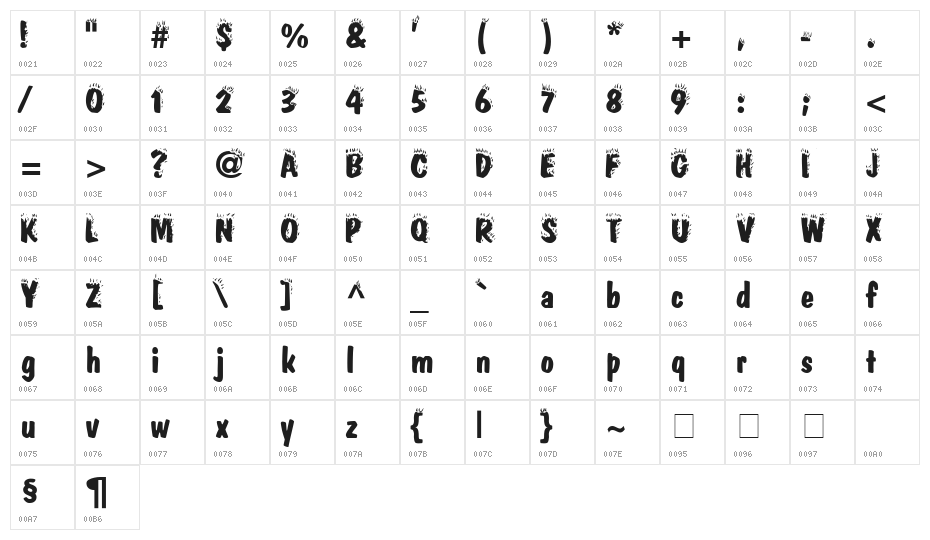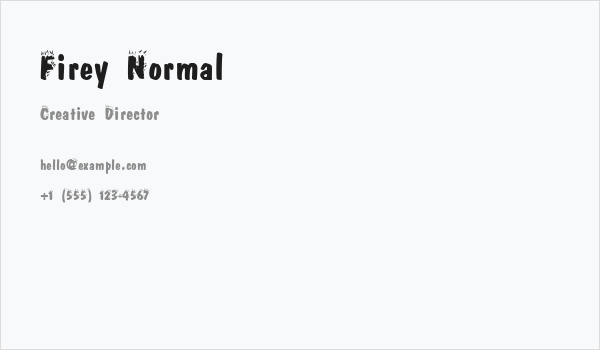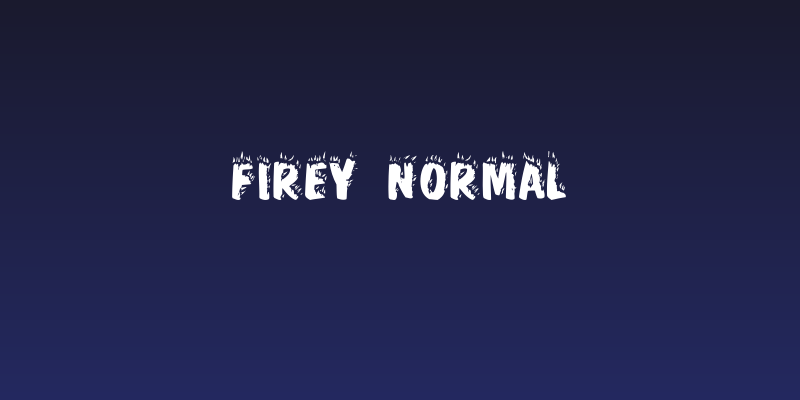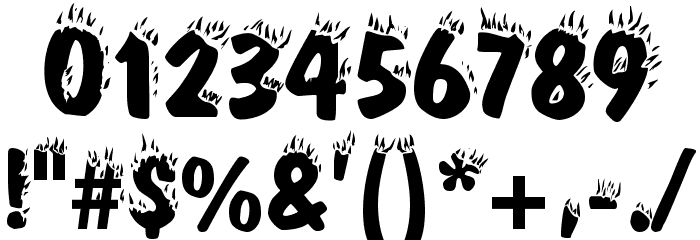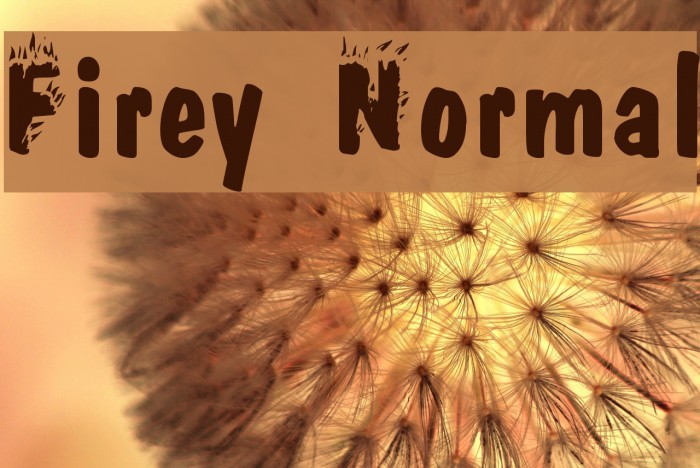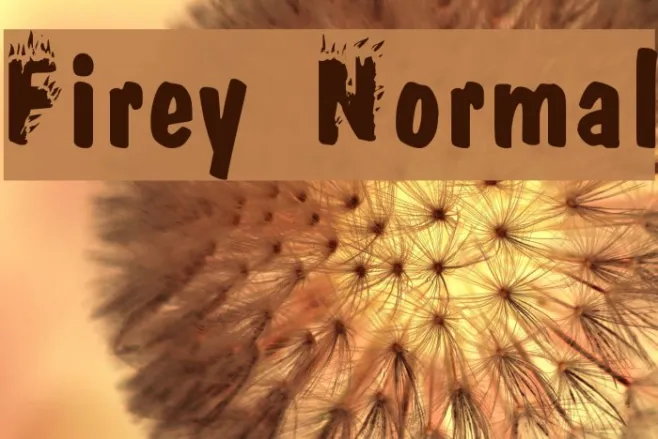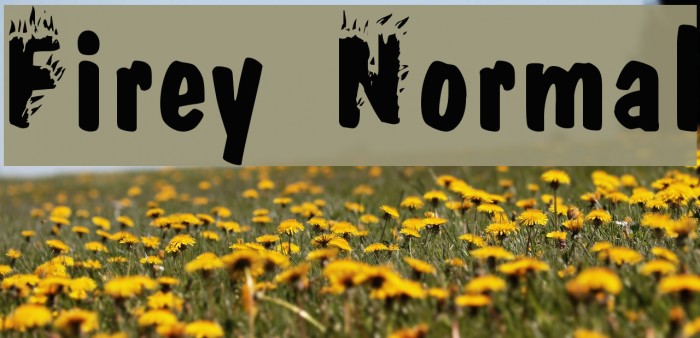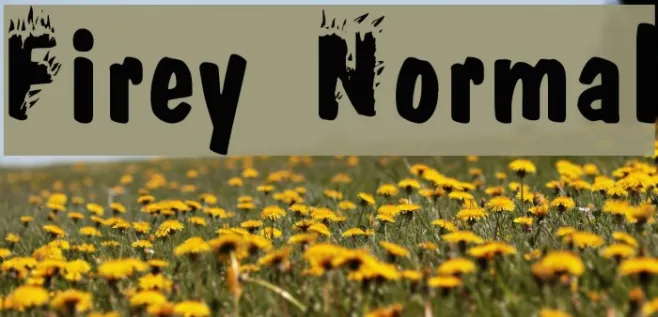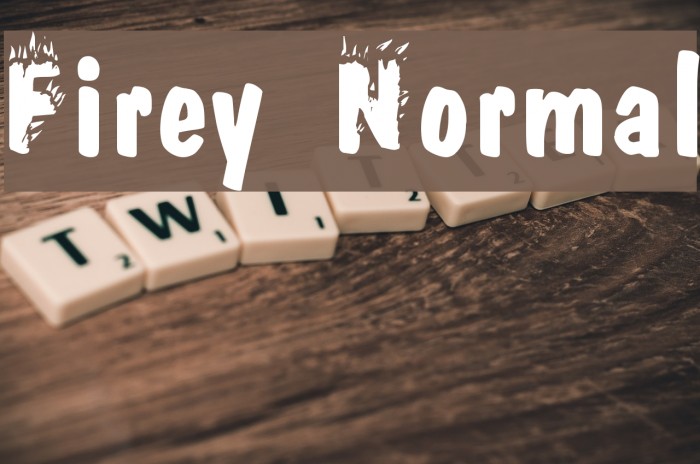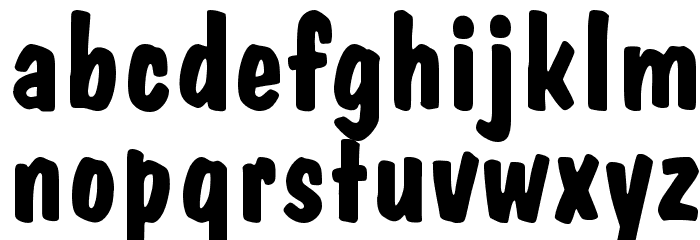
Firey Normal Font
Firey Normal Description
This font features a bold and dynamic design with a fiery effect at the top of each character, giving it a unique and energetic appearance. The uppercase and lowercase letters are well-defined, with a playful yet strong presence. The numbers and special characters maintain the same fiery theme, ensuring consistency across all glyphs. The strokes are thick, contributing to a bold and impactful look, while the overall style is decorative and eye-catching. This font is perfect for projects that require a sense of excitement and intensity.
| Proposed Projects | Ideal for event posters, video game graphics, Halloween-themed designs, or any project needing a fiery, dynamic touch. |